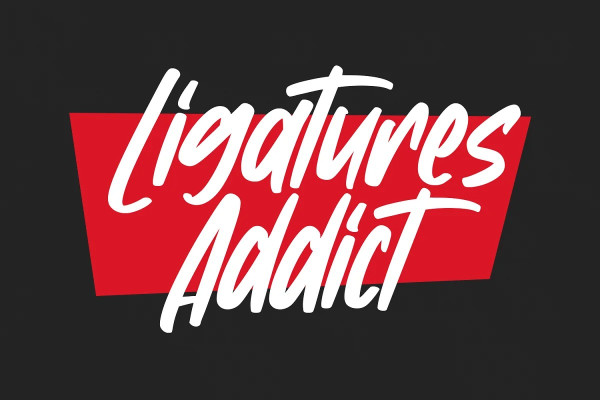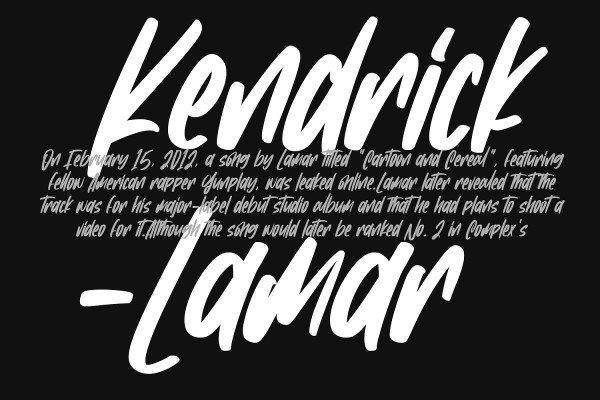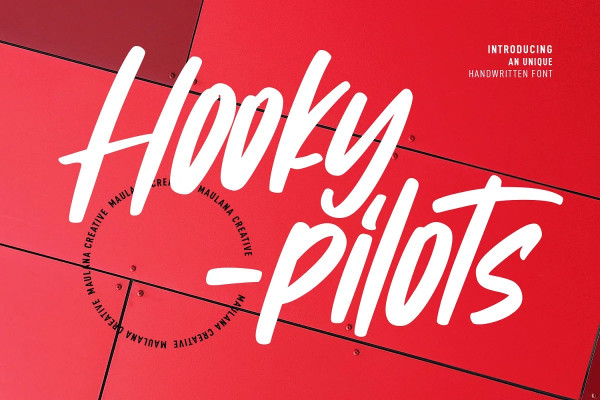
Hookypilots Font
Hookypilots Font is an expressive slanted handwritten display font. With bold stroke, fun character with a bit of ligatures and alternates. To give you an extra creative work. Hookypilots font support multilingual more than 100+ language. This font is good for logo design, Social media, Movie Titles, Books Titles, a short text even a long text letter and good for your secondary text font with sans or serif. Make a stunning work with Hookypilots font.